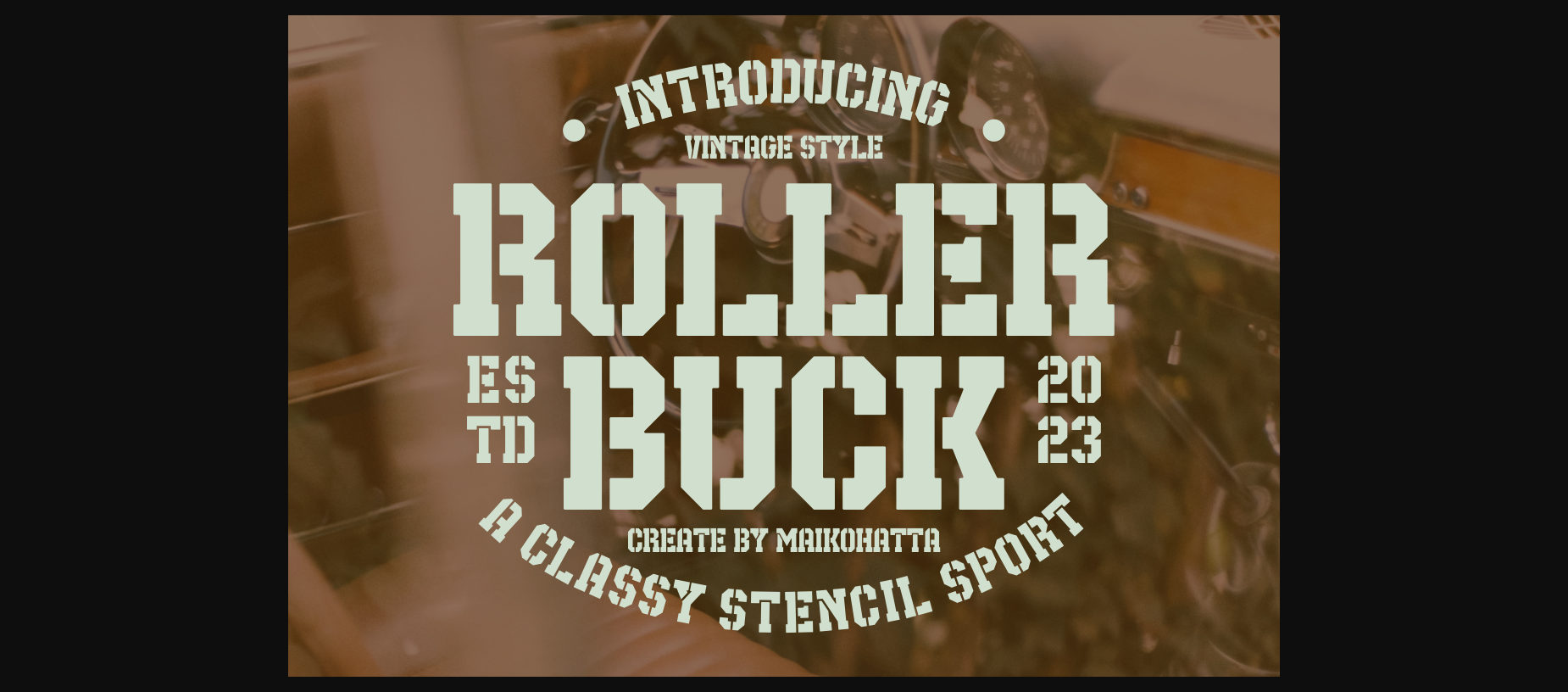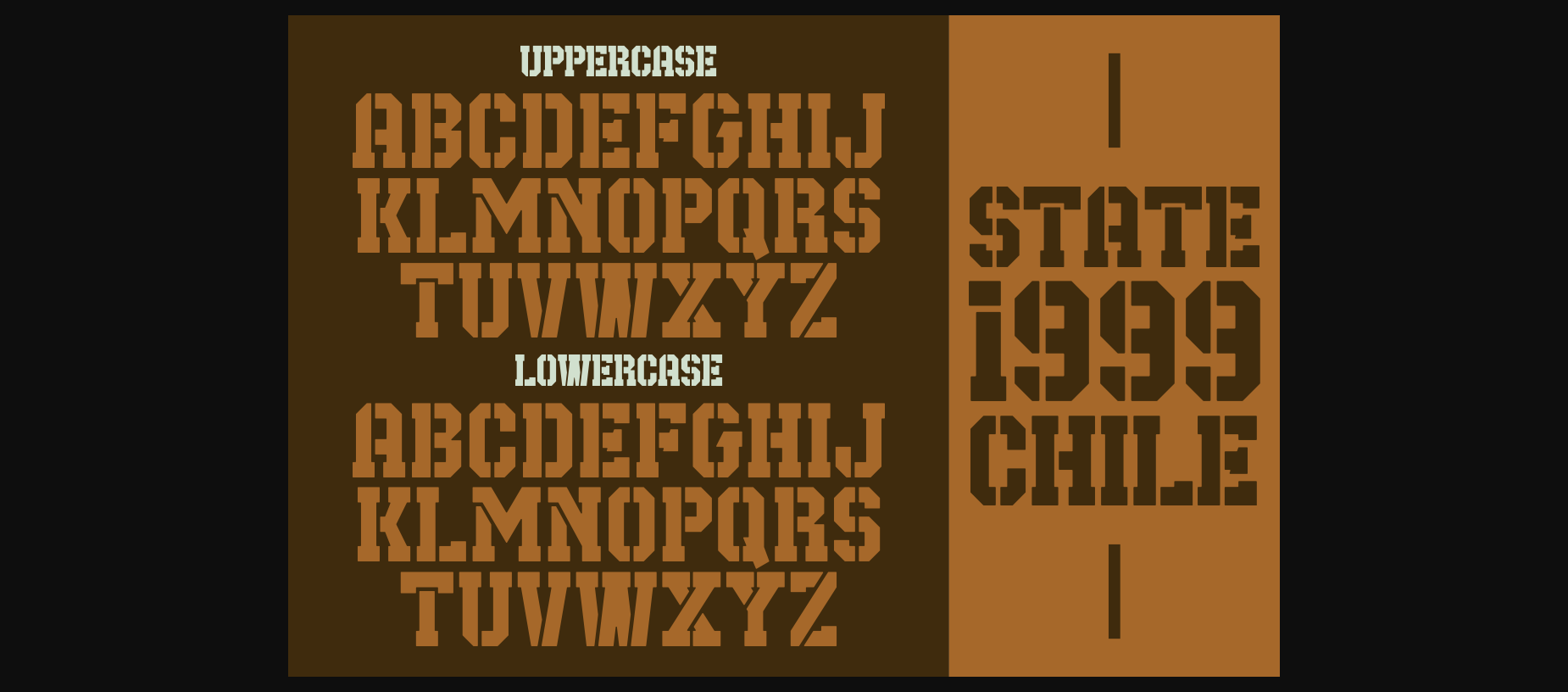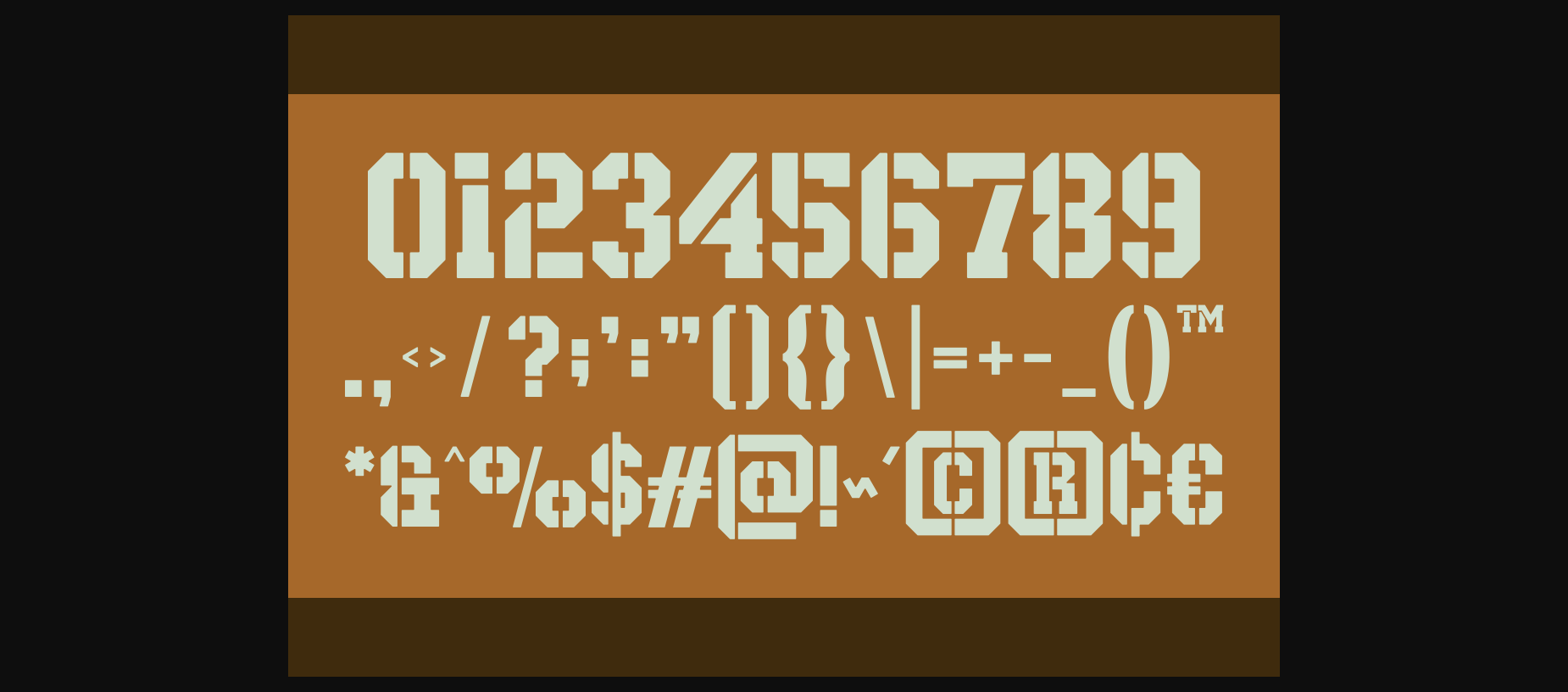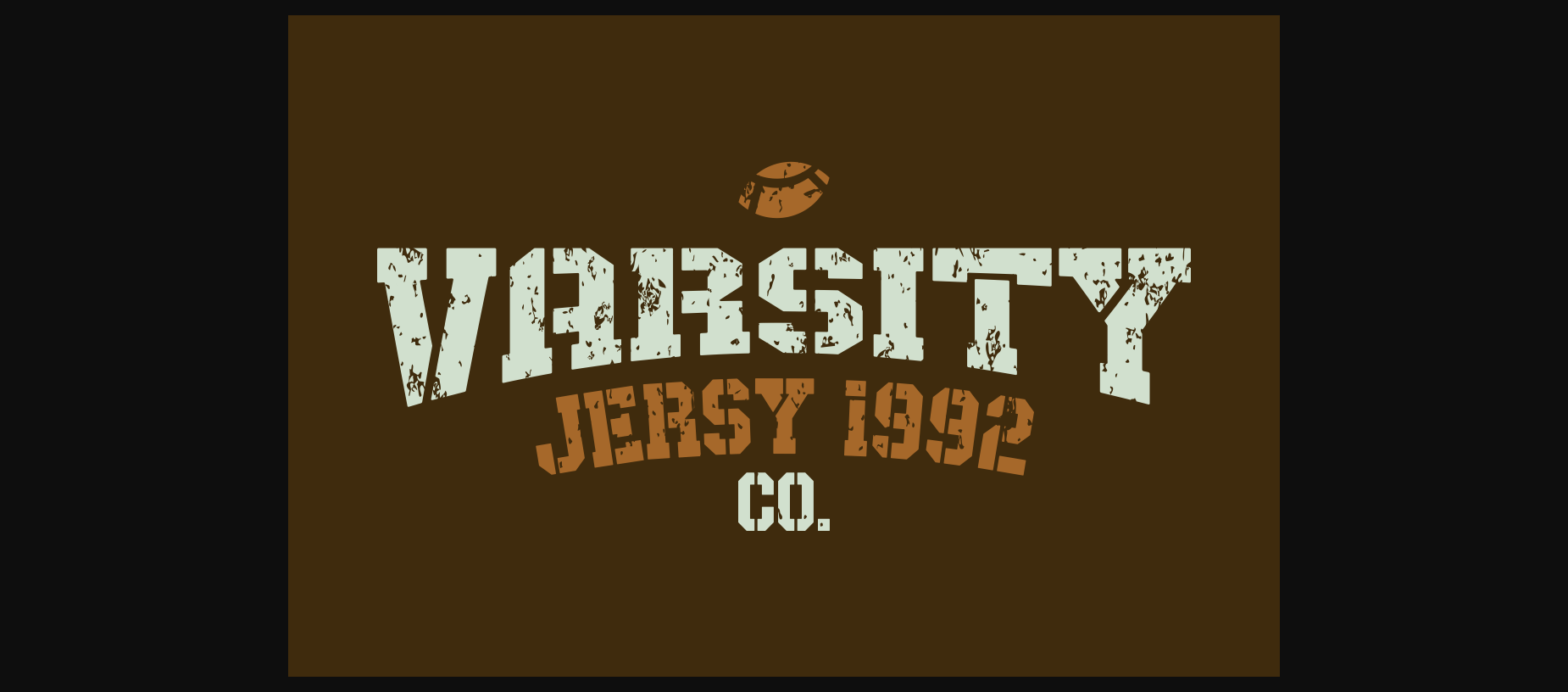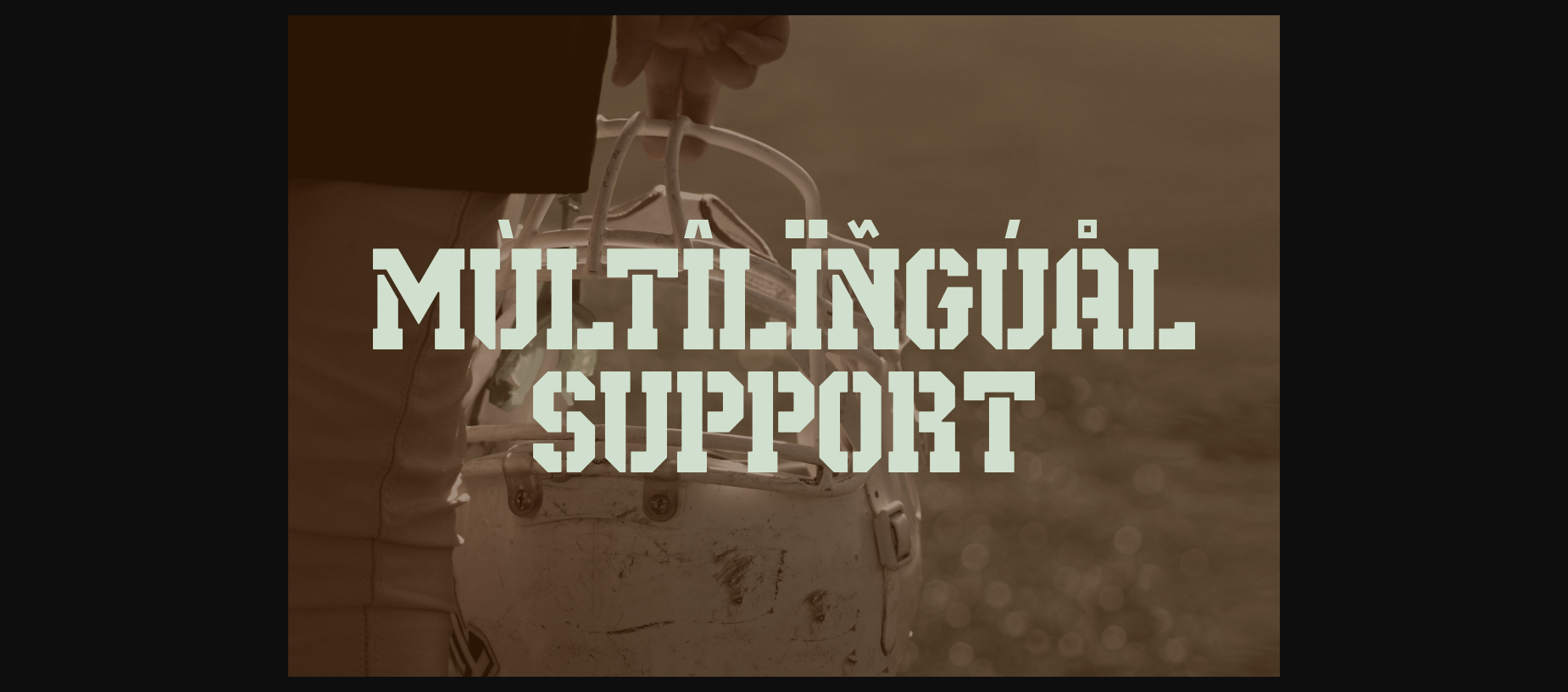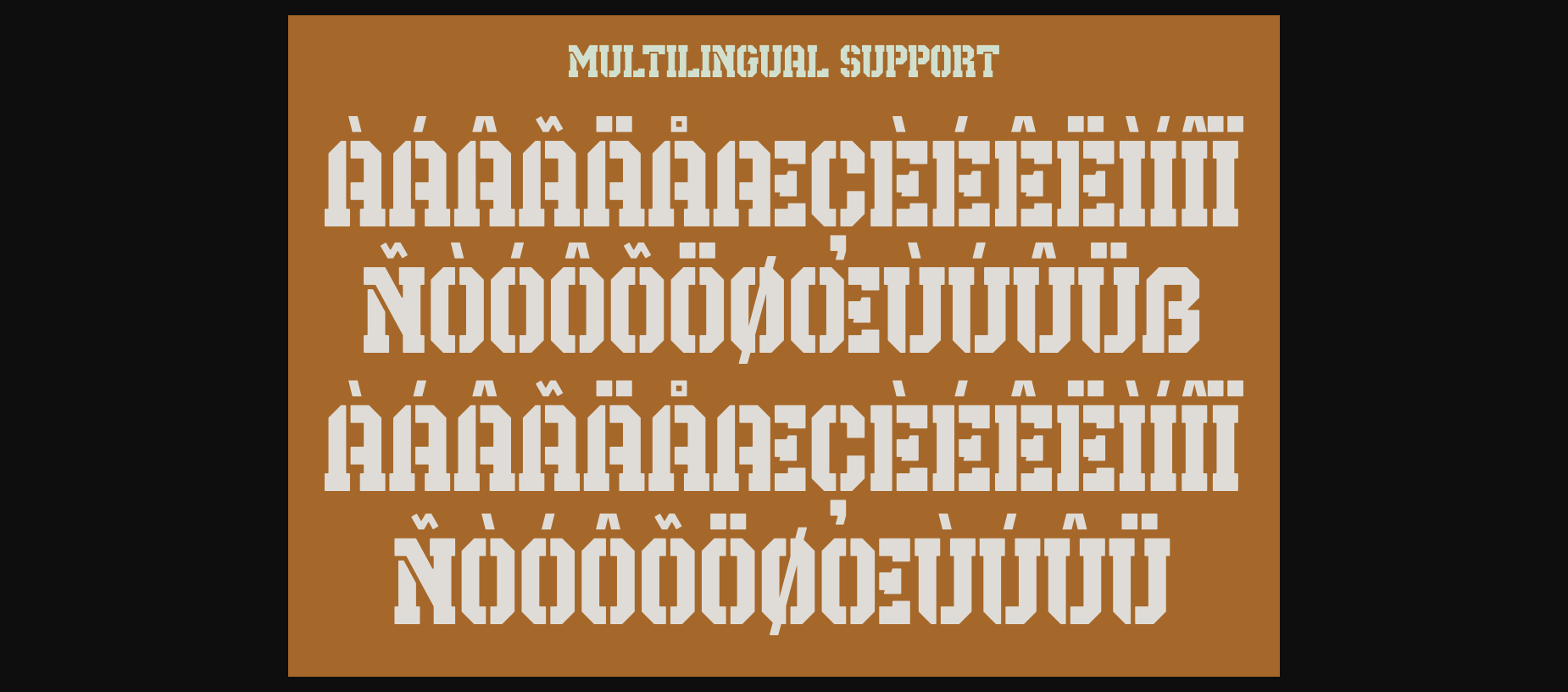
Roller Buck Font
About Roller Buck Font
This font was designed to reflect the dynamic spirit, energy and toughness often associated with physical activity and sports. Roller Buck can be used in brand identities of sports teams, sports companies, and major sporting events.